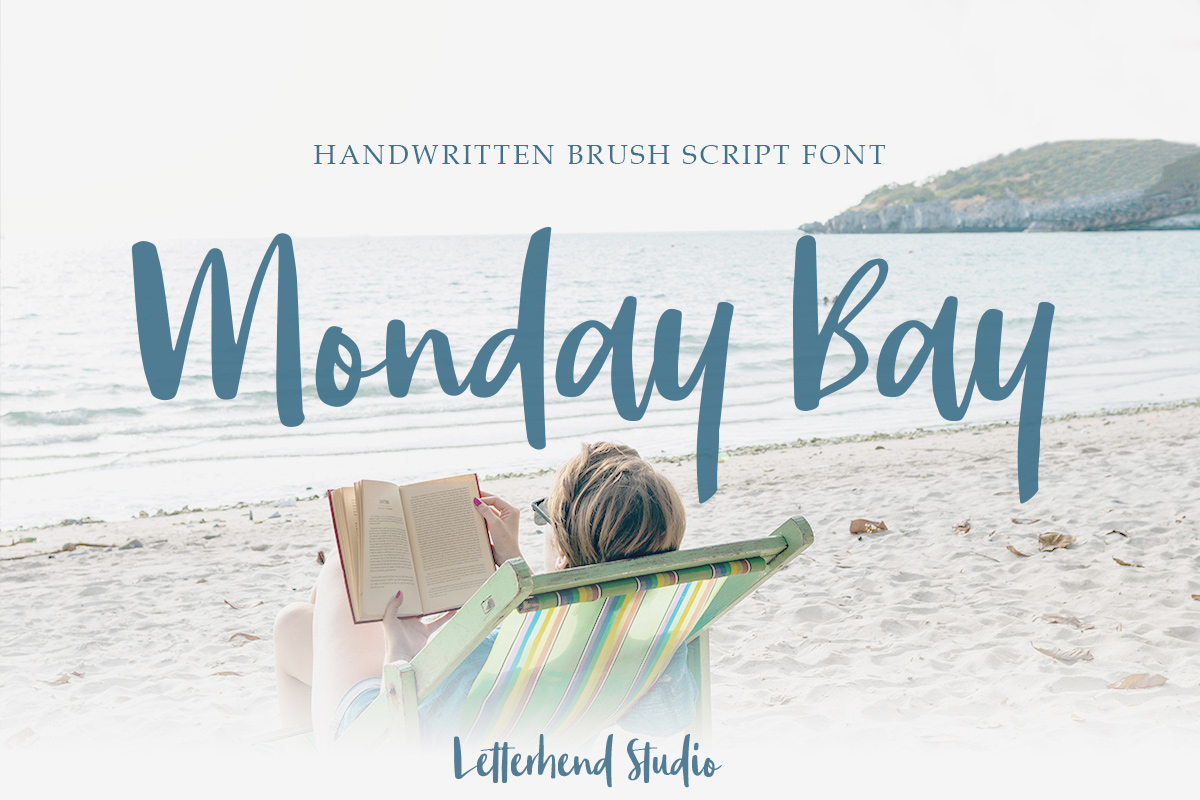
Monday Bay Font
This coastal and refreshing typeface is perfect for waterfront restaurant branding, bay area tourism marketing, coastal resort signage, marina club logos, seaside café menus, harbor cruise companies, coastal real estate agencies, oceanfront event venues, and maritime hospitality services that require a fresh, nautical aesthetic.
Monday Bay Font brings excitement to design projects with its relaxed, coastal character and refreshing bay-side charm that captures the essence of peaceful waterfront living and maritime tranquility. The font features gentle, flowing letterforms with subtle wave-like qualities that evoke feelings of serenity, coastal breeze, and harbor calm. Its maritime sophistication and peaceful presence make it an ideal choice for brands that want to communicate coastal lifestyle, waterfront elegance, and bay-side relaxation in their refreshing communications.
Monday Bay Font family includes various coastal styles: Light, Regular, Medium, Bold, Wave, Condensed, and Harbor versions. Each variant maintains the font's distinctive bay-side character while providing designers with complete flexibility for creating coastal branding systems. The family also features maritime ornaments, wave-inspired decorative elements, nautical ligatures, and coastal symbols that enhance the overall waterfront aesthetic.
The font's coastal excellence includes carefully crafted flowing rhythms that mimic gentle waves, peaceful spacing that creates visual tranquility, and refreshing variations that maintain bay-side consistency while ensuring professional presentation. Whether you're designing for waterfront hospitality, coastal tourism, or maritime services, this font delivers the refreshing touch that transports audiences to peaceful bay-side experiences and coastal relaxation.